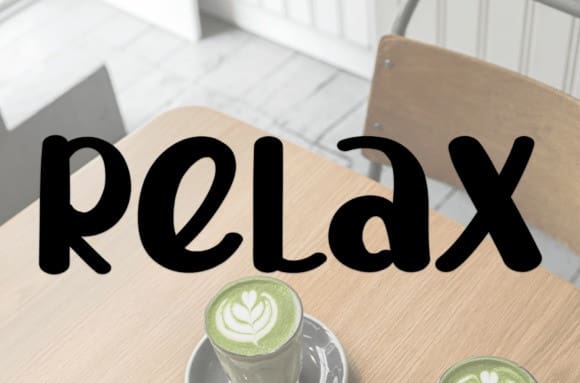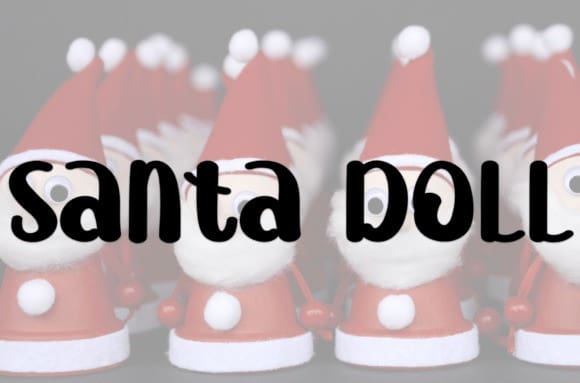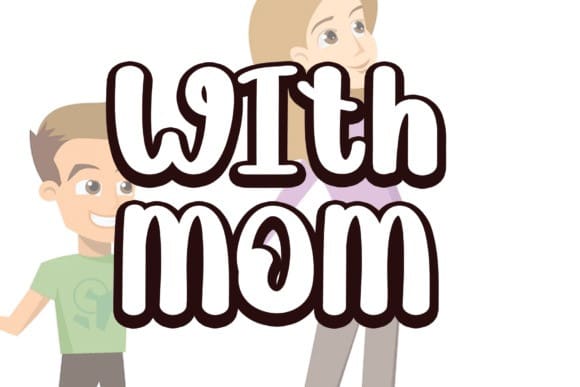
With Mom Font
With Mom Font is a sweet and friendly handwritten font. Cute and fun, this font is ideal for writing wedding invitations, cards, or any other design that might need a fun touch!